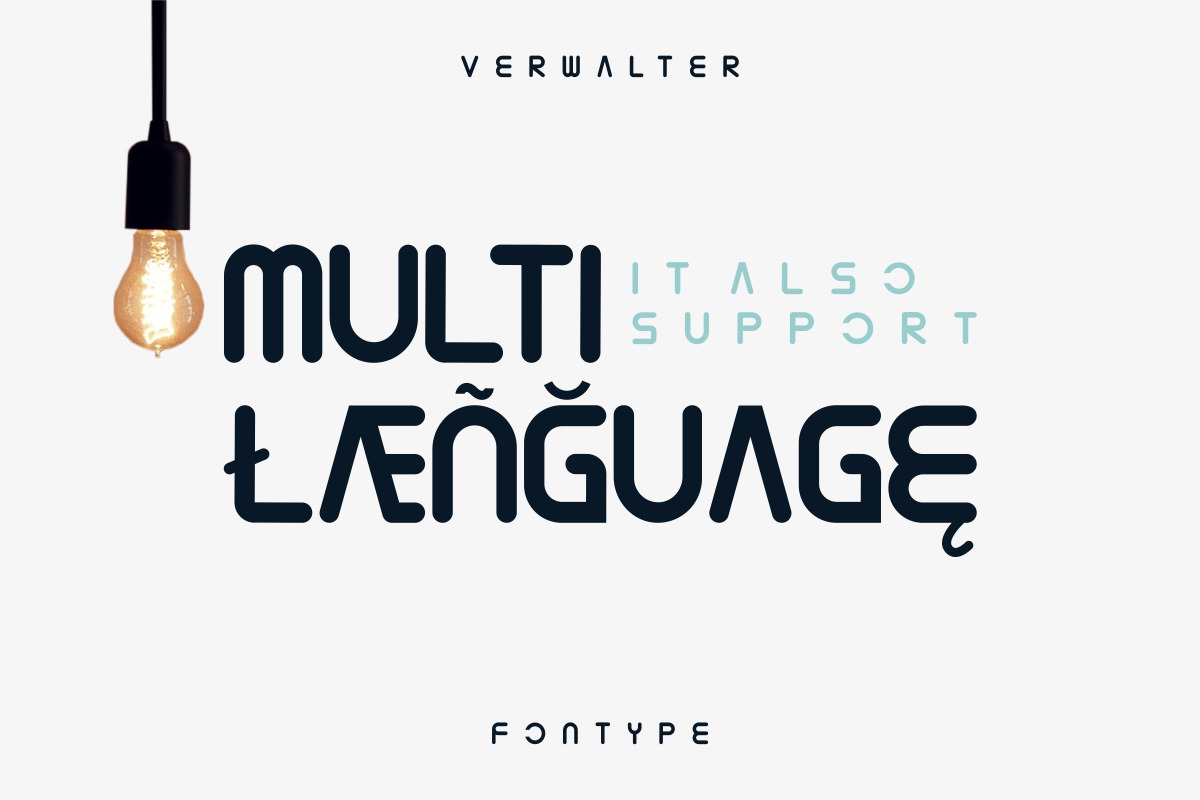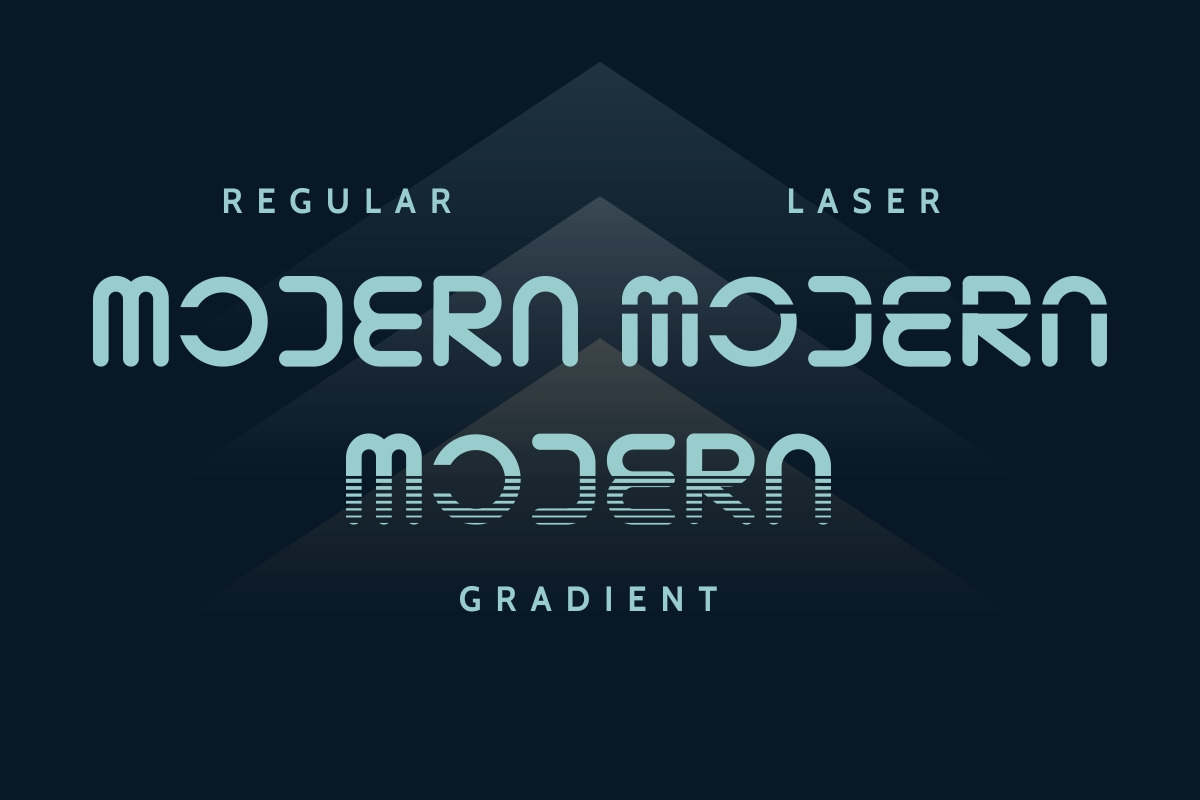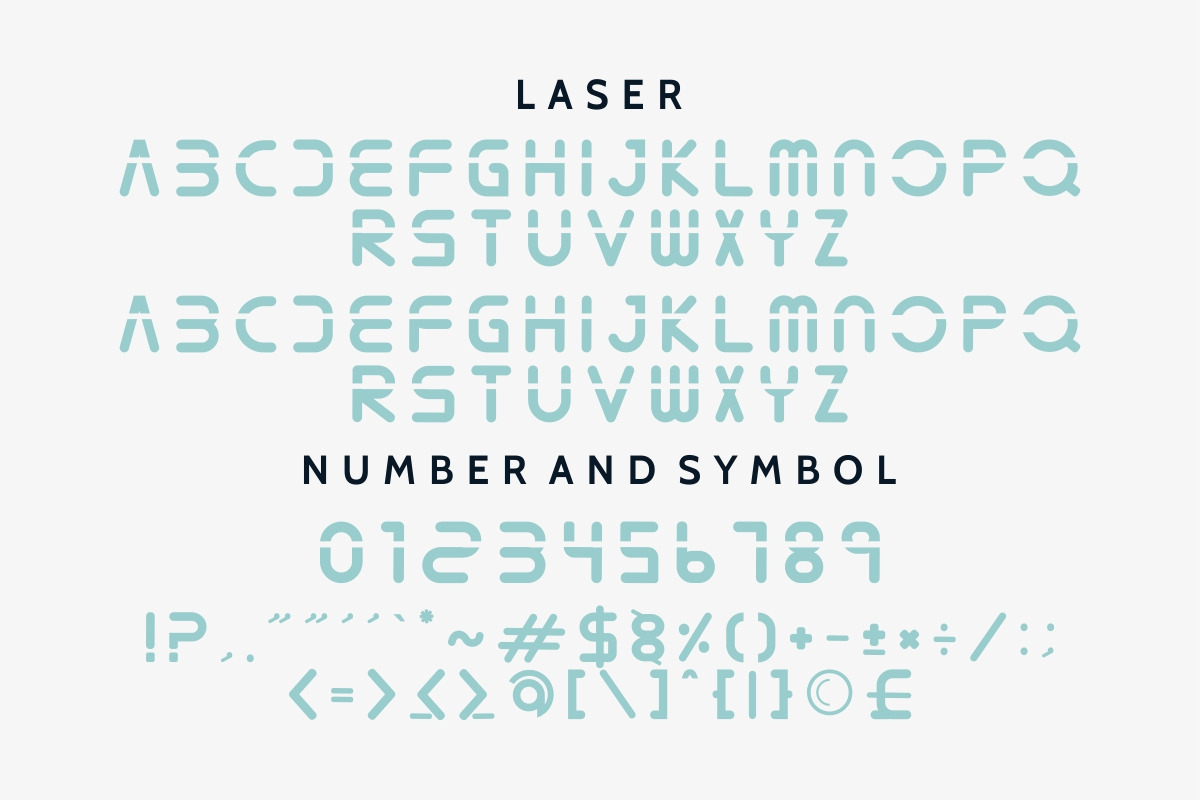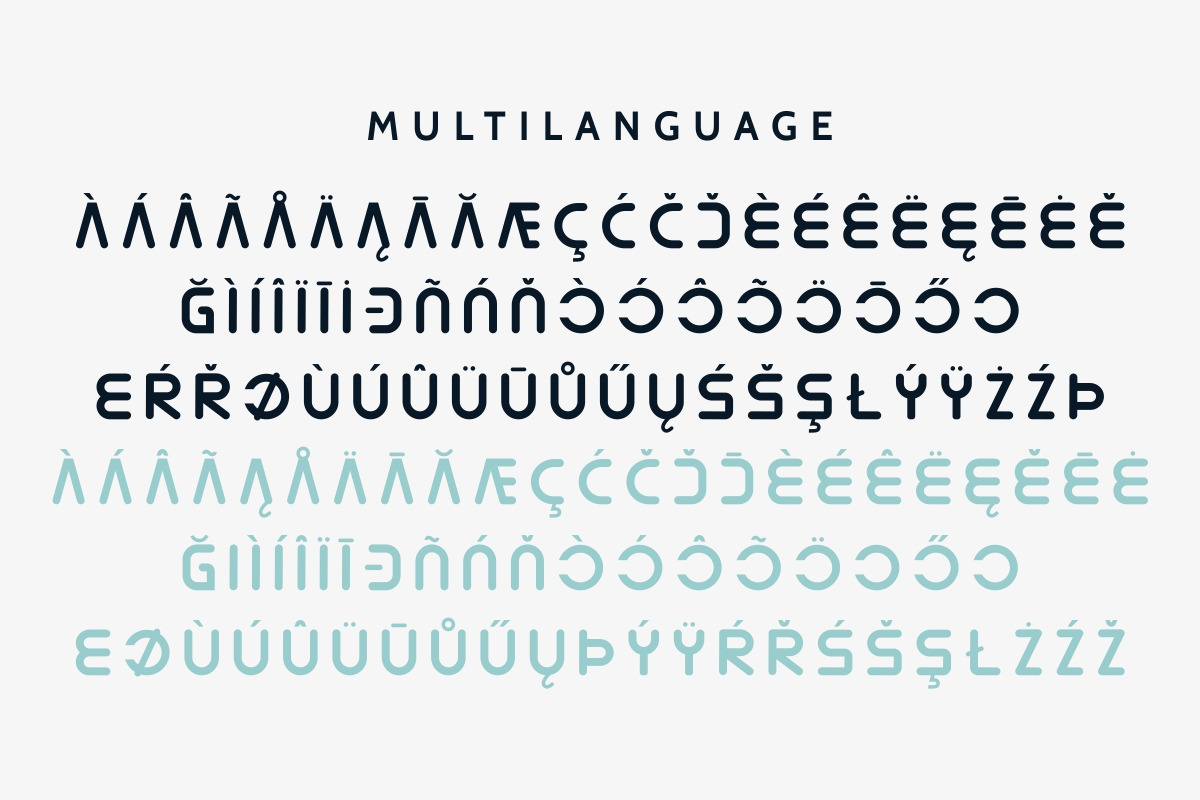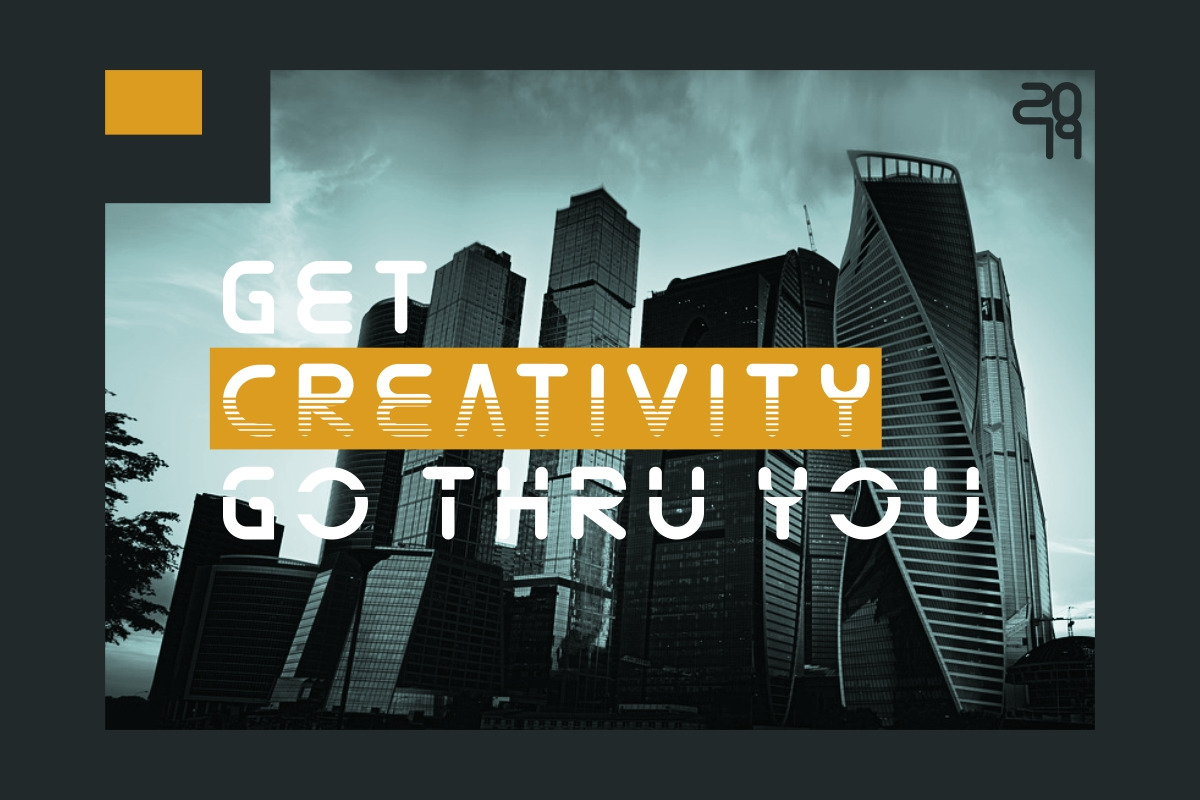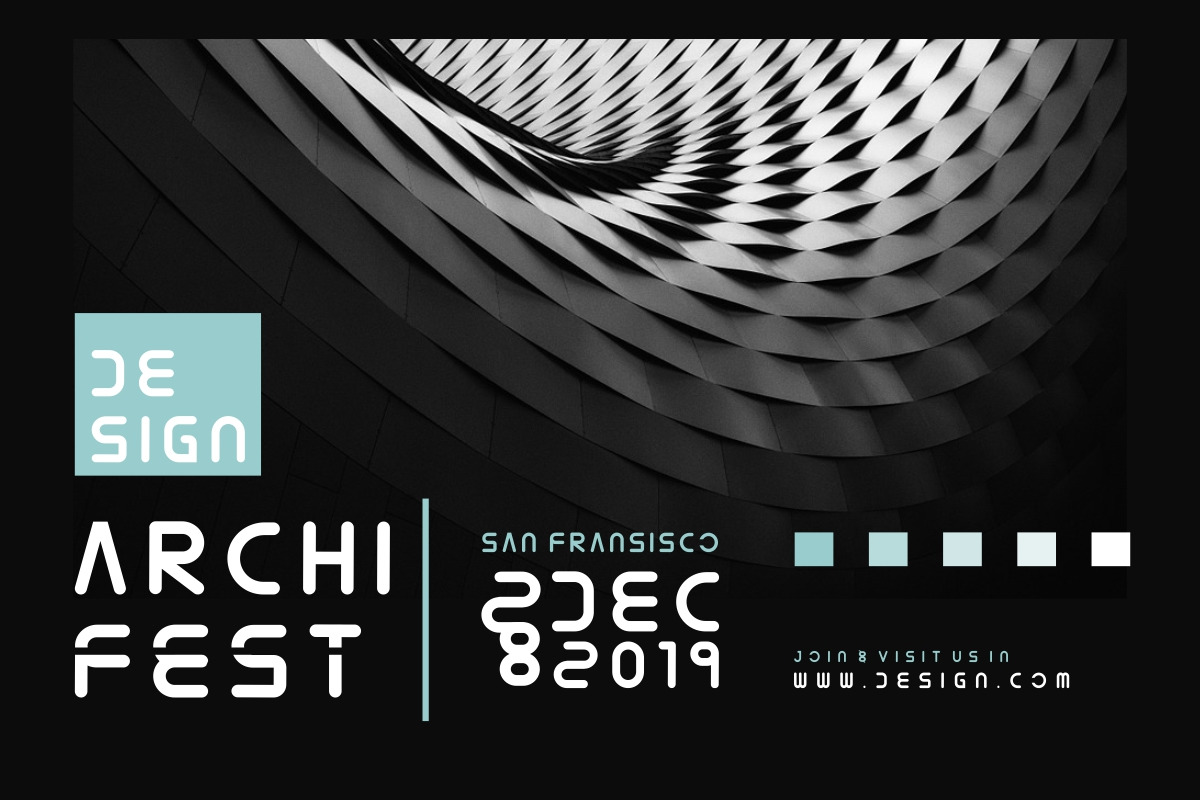
Verwalter Futuristic Font
Verwalter Font will be great for any projects including : branding, logo, stationery, business card, signage, flyer, brochure etc. Almost all industries will be match for this typeface: wedding, events, real estate, architect, law firm, florist, gardening, makeup artist, travel, hotel, musician etc